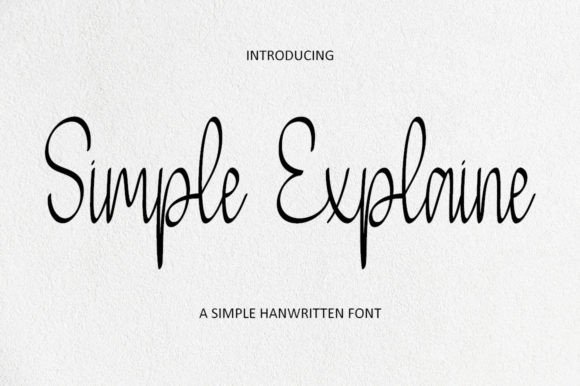
Simple Explaine: A Designer’s Take on Real-World Use
First Impressions: Clean, Confident, and Unexpectedly Versatile
Simple Explaine lands somewhere between a refined script and a modern display font. At first glance, it feels approachable yet polished—like a handwritten note from someone who really knows how to dress. The letterforms carry a soft rhythm, with gentle strokes that don’t overdo the flair. It’s not overly casual like many script fonts, nor is it stiff or overly formal. Instead, it strikes a balance that makes it feel right at home in both digital and print environments.
Its visual personality leans toward the contemporary. Think lifestyle brands, boutique packaging, or editorial layouts that want to feel curated without feeling forced. It doesn’t scream for attention, but it definitely holds its own when used thoughtfully.
Performance Across Real Design Projects
When it comes to practical use, Simple Explaine punches above its weight. It’s not just another script font for wedding invitations—it’s got the structure to work in more complex branding and commercial design settings.
- Logo Design: Works best when used for secondary logotype elements or sub-brands. Its legibility holds up well in short names, especially when paired with a strong sans serif or serif font.
- Brand Identity: Offers a clean, modern alternative to traditional script fonts. It reads as intentional and not overly nostalgic, which is a win for brands aiming for a fresh, human touch.
- Packaging & Product Labels: Shines in minimalist packaging where a subtle handwritten feel adds warmth without clutter. Particularly effective on matte finishes or soft color palettes.
- Posters & Flyers: Best used in supporting headlines or taglines. It lacks the visual punch of a true display font but works well for softer, lifestyle-oriented messaging.
- Merchandise & Printables: Great for t-shirts, notebooks, and greeting cards—especially when used in small to medium sizes. Holds up well in laser-cut projects like Cricut or Silhouette designs.
- Web & Social Media Graphics: Translates well to digital spaces. Works especially well in Canva templates, Instagram stories, and Pinterest graphics where a clean, modern script vibe is needed.
Where to Use Simple Explaine With Care
Like any script font, Simple Explaine has its limits. It’s not built for long-form text or dense layouts. Here are the key areas to watch:
- Large Headlines: Can lose impact at very large sizes due to its relatively restrained flourishes. It’s elegant but not dramatic.
- Supporting Text: Not ideal for body copy. Its script nature makes it harder to read in paragraph form.
- Brand Marks: Should be tested thoroughly in black and white and at small sizes to ensure clarity across applications.
- Quotes & Decorative Accents: Excels here—especially in editorial or social media contexts where a touch of personality is needed without overpowering the layout.
Impact on Branding and Readability
One of the most important aspects of any font is how it affects audience perception. Simple Explaine walks a fine line between professionalism and personality. Used correctly, it builds trust without feeling stiff. It helps establish a brand voice that’s warm, approachable, and modern.
In terms of hierarchy, it works best as a secondary typeface. It can anchor a design without dominating it, especially when paired with a strong primary font. Its spacing and letterforms allow for good visual flow, making it easier to integrate into multi-font systems without clashing.
For designers concerned with brand consistency, Simple Explaine holds up well across mediums. It maintains its character whether printed on a business card or rendered on a mobile screen, which is a big plus for multi-channel branding efforts.
Practical Designer Notes: What to Test Before You Commit
Before locking in Simple Explaine for a client or personal project, there are a few things every designer should test:
- Black and White Versions: See how it reads in monochrome, especially for print materials like packaging or merchandise.
- Small-Size Readability: Try it at 10–14pt to see if it still holds clarity. Some script fonts fall apart at smaller sizes.
- Mockup Integration: Load it into a real-world mockup—like a product label or t-shirt preview—to check how it sits within the full design.
- Uppercase vs Lowercase: This font has a more expressive lowercase, so test both versions depending on your message.
- Spacing Behavior: Look at how it handles tight or loose tracking. Some script fonts get messy when adjusted.
- Font Pairing: Test it beside serif, sans serif, and other script fonts. It pairs best with clean, modern sans serifs or structured serifs.
Final Thoughts: A Smart Addition to a Designer’s Toolkit
Simple Explaine isn’t a one-size-fits-all solution, but it fills a niche that many script fonts miss. It’s modern without being trendy, expressive without being loud, and versatile enough to work across a range of design disciplines.
For designers working on brand identity, packaging, or digital content, this font earns its keep. It’s subtle enough to blend in where needed, yet distinctive enough to add character. If you’re looking for a script font that behaves more like a display font with a soft touch, Simple Explaine deserves a spot in your lineup—just be sure to test it thoroughly before deployment.